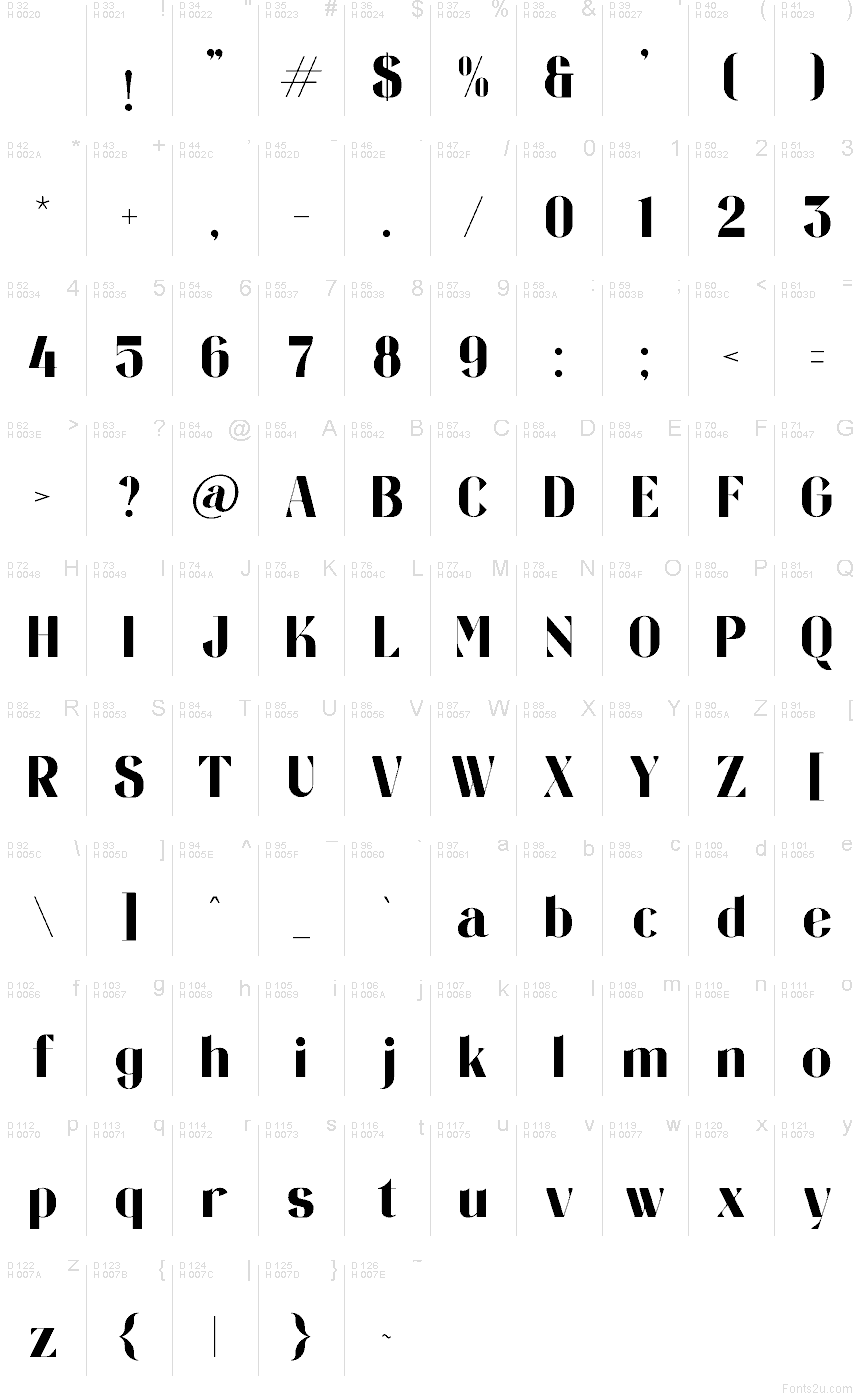
Restful Silent by TimelessType.co is a free high-contrast modern serif with a calm, fashion-led presence. The letters mix sharp, tapered strokes with broad curves and clipped joins, giving the font a poised rhythm that feels refined rather than fragile.
It fits naturally in magazine mastheads, boutique packaging, beauty branding, book covers, and elegant title cards, where a few words can carry the look. As a free font, it is especially useful for cover lines, pull quotes, and short identities that benefit from its polished contrast and slightly sculpted, editorial mood.